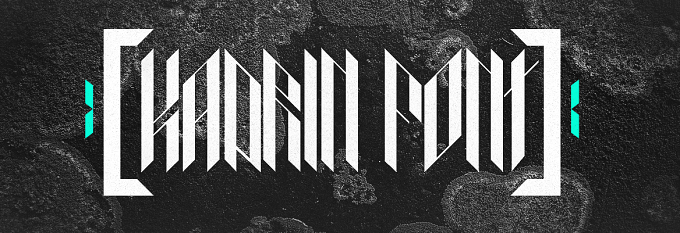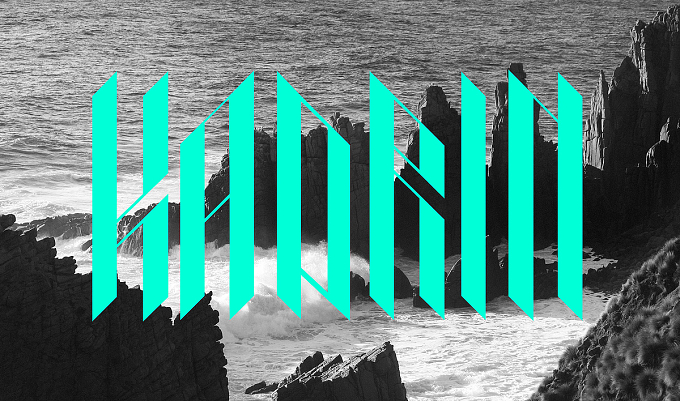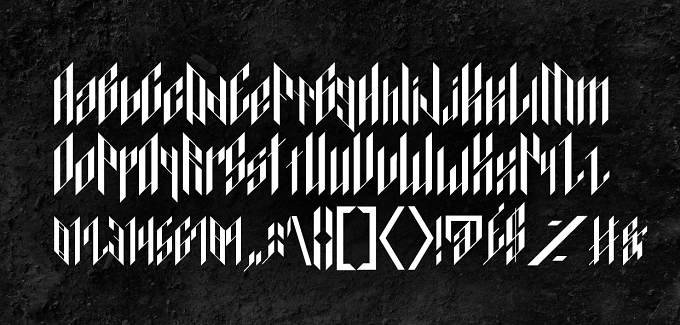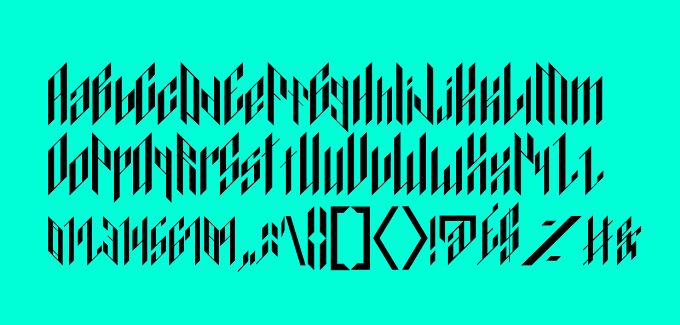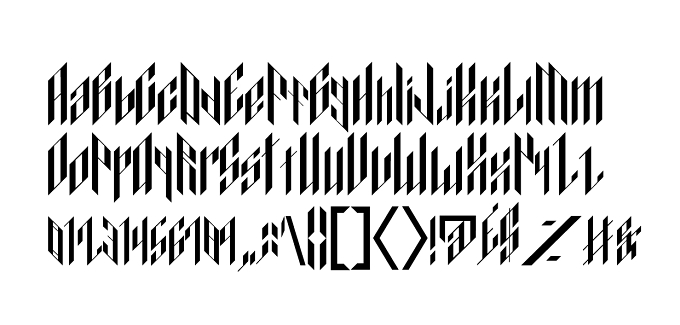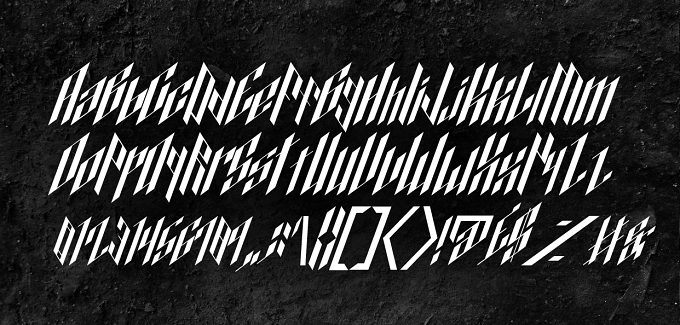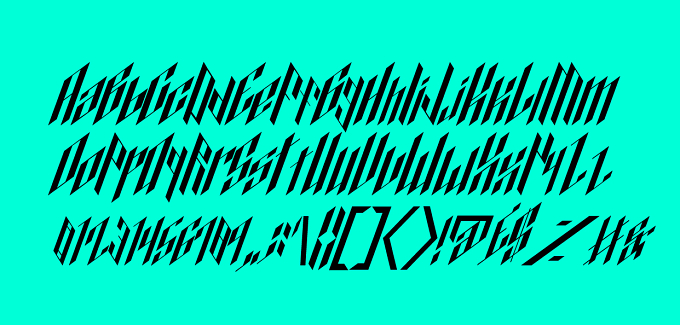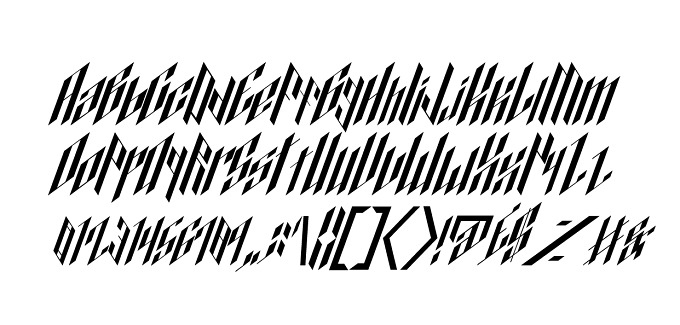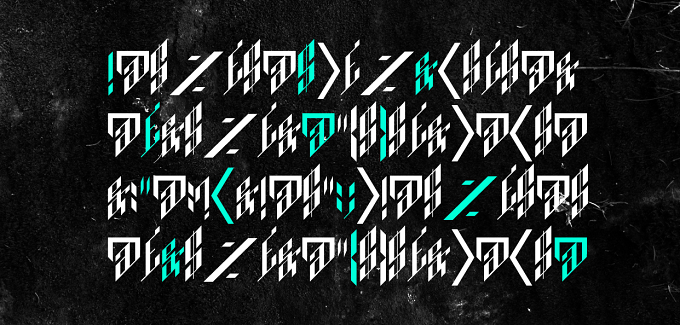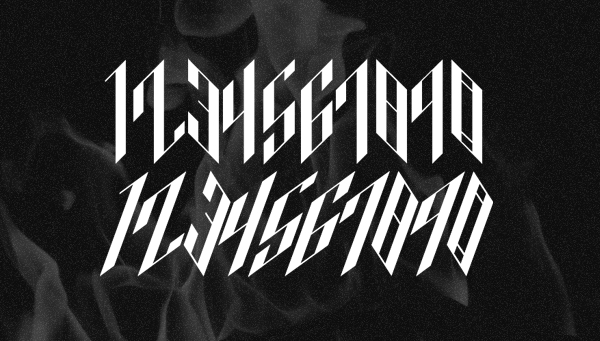
Kadrin
A new experimental display typeface.
Kadrin is an experimental typeface that fuses the sharp edges of mountain peaks alongside the geometrical beauty of staccato musical scores in a modern display typeface.
Further inspirations for the glyphs was drawn from World War 2 propaganda posters and Ancient Dwarvish rune scripts.
Kadrin is the result of my first experimentation with Open-Type font design. Key elements of this typeface are the sharp angled forms and the perspective geometry glyphs. Kadrin is best suited to large scale designs, strong sharp typography, music editorial headlines and EP covers to name a few.